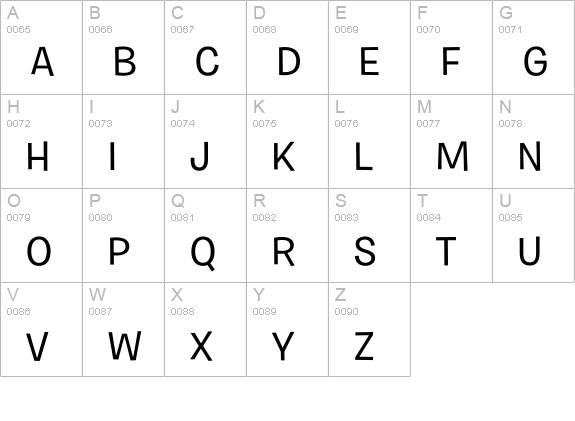
Burbank Small Medium is a balanced, medium-weight variant in the Burbank typeface family \xE2\x80\x94 well suited to sub-headlines, navigation, and balanced editorial work.